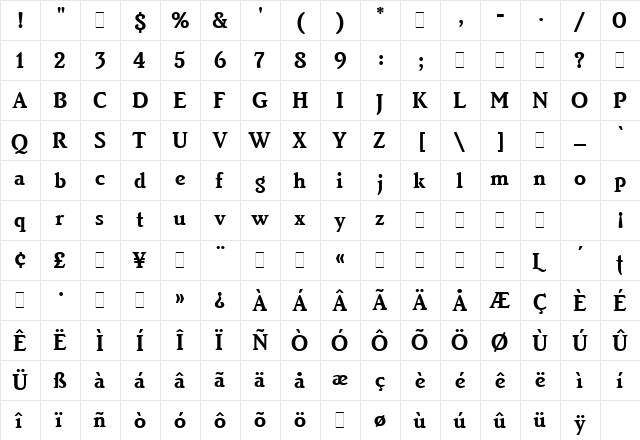
Brighton Bold
Design Context for Brighton Typeface
Brighton is a composed and adaptable typeface that performs quietly and consistently across a wide range of design contexts. The heavy weight commands attention and anchors typographic hierarchies.